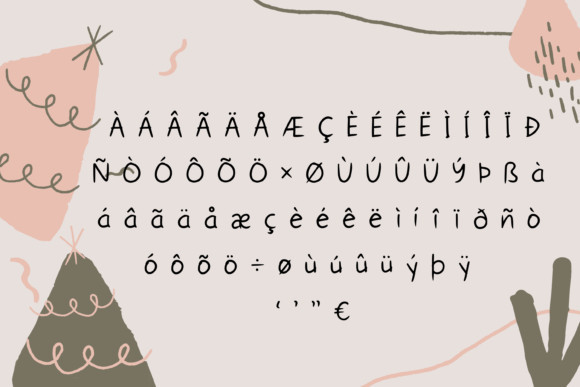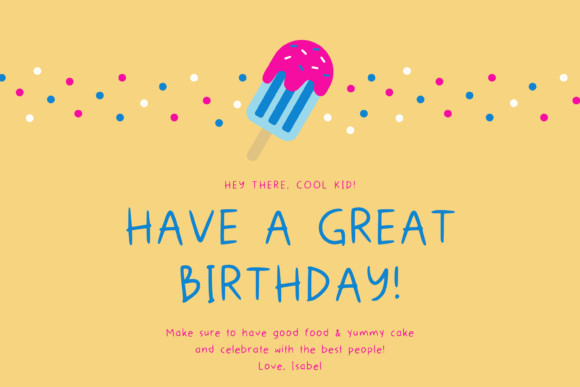
Messy Sketch Font
Messy Sketch is a cute and friendly handwritten font. Its natural and unique style makes it incredibly fitting to a large pool of designs. The only limit is your imagination!